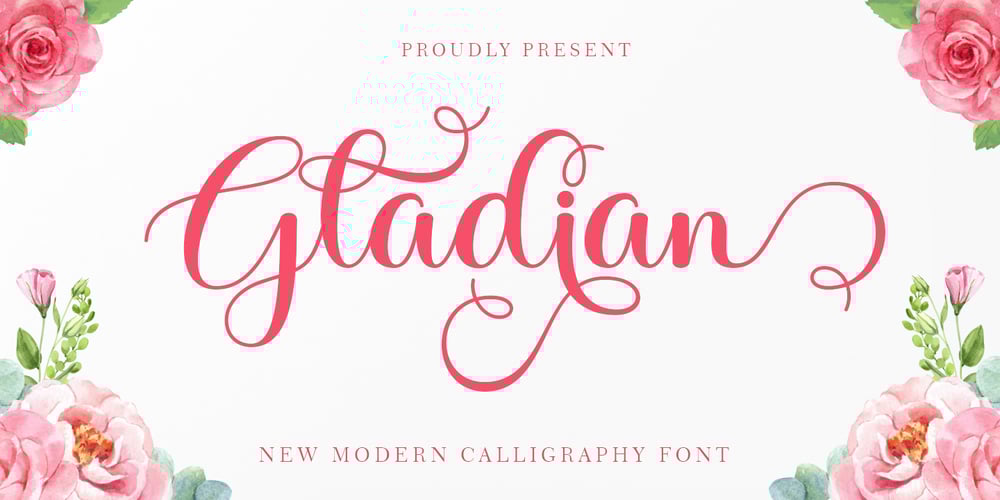
Gladian Font Family was designed by Romi Rahmadi and published by Romie Creative. Gladian contains 1 styles and family package options. Gladian Script, a new & modern script with handcrafted calligraphy styles, decorative characters and dancing baselines! So beautiful in invitations like greeting cards, branding materials, business cards, quotes, posters and more !!Gladian Script is equipped with 144 glyphs. Alternative characters are divided into several Open Type features such as Swash, Stylistic Sets, Stylistic Alternates, Contextual Alternates, and Ligature. The Open Type feature can be accessed using Open Type savvy programs such as Adobe Illustrator, Adobe InDesign, Adobe Photoshop Corel Draw X version, and Microsoft Word. And this Font has provided PUA unicode (custom coded font). so that all stunt characters can be easily fully accessed by a craftsman or designer.